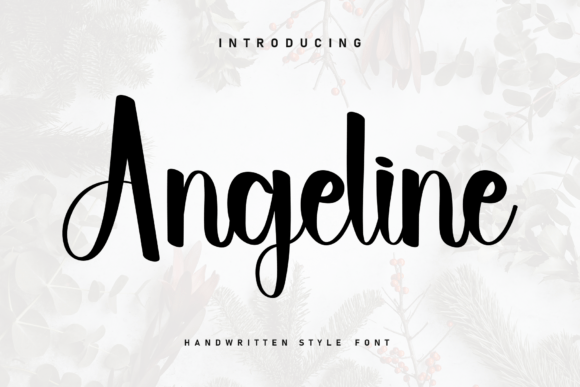
Embracing the Charm of Handwritten Fonts
Have you ever found yourself doodling in a notebook, letting your pen wander across the page as you brainstorm ideas? For many creatives, those carefree moments of sketching and scribbling can spark some of the most innovative designs. It’s in these moments that we’re reminded of the beauty of handwritten fonts – the imperfections, the flair, and the personality that they bring to a project.
Meet Angeline Font, a sweet and beautiful handwritten font that’s sure to add a cozy accent to any design project. Its characters dance along the baseline, creating a sense of movement and energy that’s hard to resist. Whether you’re working on a blog post, a social media campaign, or a marketing brochure, Angeline Font is the perfect choice for adding a touch of warmth and character to your designs.
As a designer, you know the importance of finding the right font to convey your message and connect with your audience. Angeline Font is a valuable addition to any designer’s toolkit, offering a unique and expressive way to bring your ideas to life.
Angeline Font Key Features
- Unique Characteristics: This font features a distinctive, elegant script with a touch of vintage flair, making it ideal for creative and artistic applications.
- Font Style: Angeline Font comes in a single style, but it offers a range of weights and ligatures to enhance its versatility and expressiveness.
- Language Support: The font supports a wide range of languages, including English, Spanish, French, German, Italian, Portuguese, and many others.
Angeline Font Review
Overall, I think Angeline Font is a lovely, elegant script font. It’s perfect for creating a whimsical or vintage feel in your designs.
- The fluidity of the letterforms is really nice, making it a pleasure to read.
- The subtle flair at the end of each letter is a nice touch.
- The font is highly customizable, making it easy to adjust to different contexts.
- The font can be a bit too ornate for some designs, making it overwhelming.
- Some letters may be tricky to read at smaller sizes.
- The font doesn’t come with a bold or condensed weight, which may limit its versatility.
Overall, I’d give Angeline Font 4 out of 5 stars. It’s a beautiful font that’s perfect for certain designs, but it may not be the best choice for more modern or minimalist designs.
Getting the Most Out of Angeline Font
Use Angeline Font for titles, headings, and body text to create a consistent and stylish design.
Experiment with different font sizes and colors to emphasize key points and create visual interest.
Angeline Font is ideal for:
– Creative projects, such as infographics and brochures
– Business presentations and reports
– Social media graphics and ads
– Web design and development projects
Alternatives to Angeline Font
Playfair Display is a high-end, elegant serif font. It is ideal for use in luxury branding, high-end fashion, and other premium products. Its intricate details and beautiful lettering make it perfect for creating a sophisticated and luxurious feel.
Comparison to Angeline Font: While Angeline Font is also elegant, Playfair Display is more ornate and intricate. It’s a better choice when you need to convey a sense of luxury and high-end quality.
Great Vibes is a modern, elegant script font. It’s perfect for use in creative branding, wedding invitations, and other applications where a touch of elegance and sophistication is needed.
Comparison to Angeline Font: Great Vibes has a more modern and flowing feel compared to Angeline Font. It’s a better choice when you need a more contemporary and dynamic look.
Q: Is Angeline Font compatible with serif and sans-serif font pairing?
Angeline Font is designed to be a versatile font that can be paired with both serif and sans-serif fonts. Its elegant and refined style makes it suitable for pairing with classic serif fonts like Garamond or Georgia, as well as modern sans-serif fonts like Helvetica or Arial.